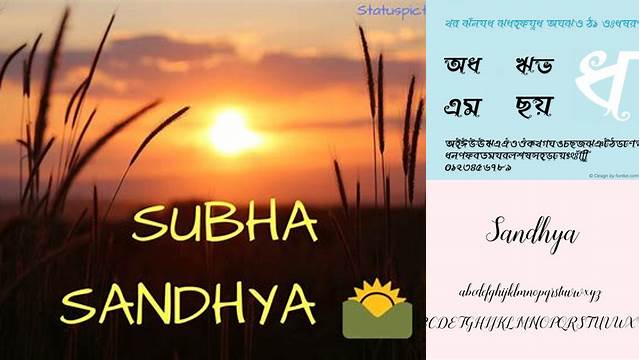
1. What is the Subha Sandhya Font?
Alright, first things first, what exactly is the Subha Sandhya font? It's a stylish and elegant typeface that often features a script-like quality, giving it a sense of fluidity and sophistication. Think of it as a font that can add a touch of class and artistry to your projects. The design often incorporates a handwritten feel, making it perfect for projects that require a personal or artistic touch. Whether you're designing invitations, logos, or social media graphics, the Subha Sandhya font can add a unique charm that sets your work apart. The Subha Sandhya font often comes in various styles, from the standard regular version to bold or italic variations, allowing you to adjust its look to perfectly fit your needs. Its versatility makes it a great choice for designers of all kinds. In essence, the Subha Sandhya font is more than just a set of letters; it's a design element capable of expressing creativity and personality, transforming your text into a visual masterpiece. Knowing about the Subha Sandhya font also involves understanding the cultural context of the font's name and origin, which contributes to its aesthetic value. This information can further enhance the appeal and effectiveness of your designs. Therefore, if you are looking for a font that blends elegance with readability, the Subha Sandhya font could be your ideal choice. This font's inherent aesthetic appeal makes it a popular choice for anyone hoping to create something beautiful.